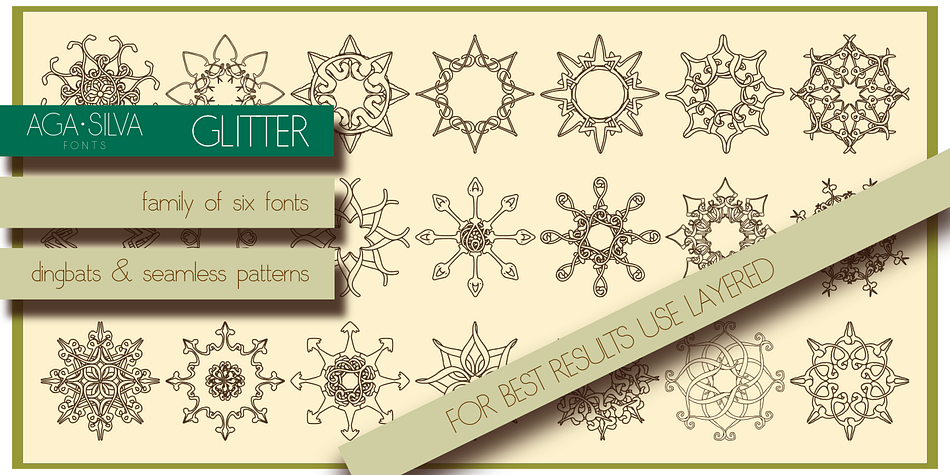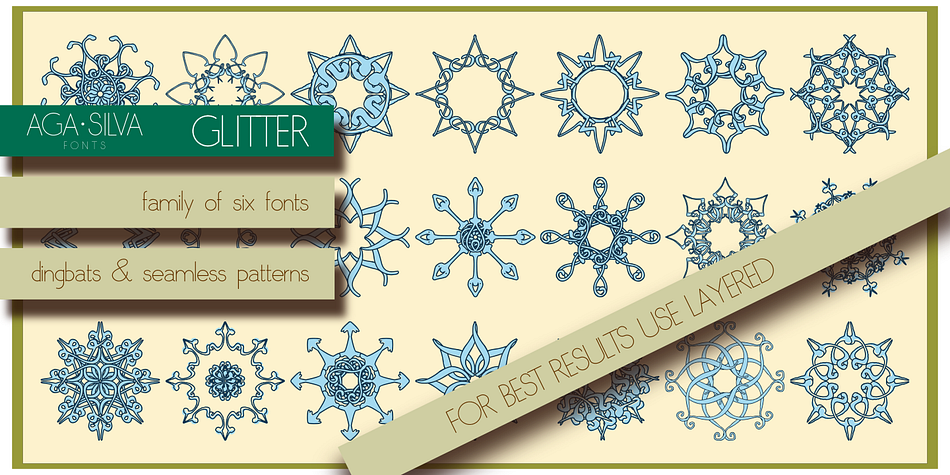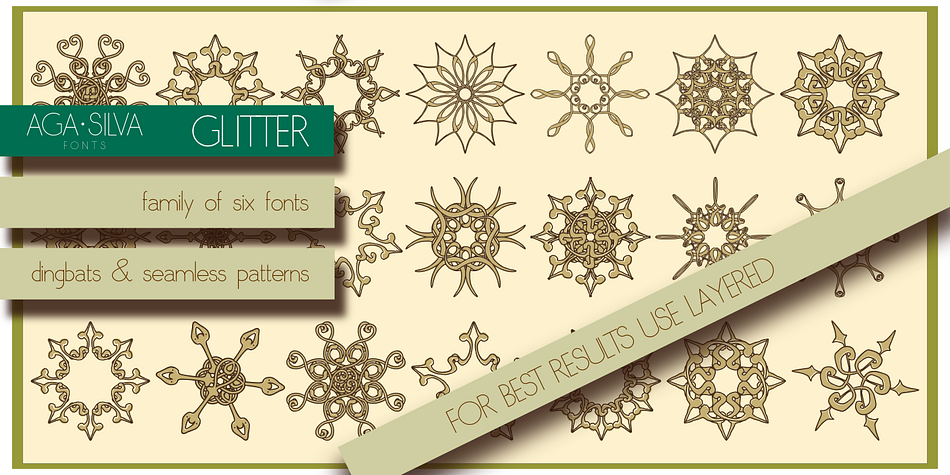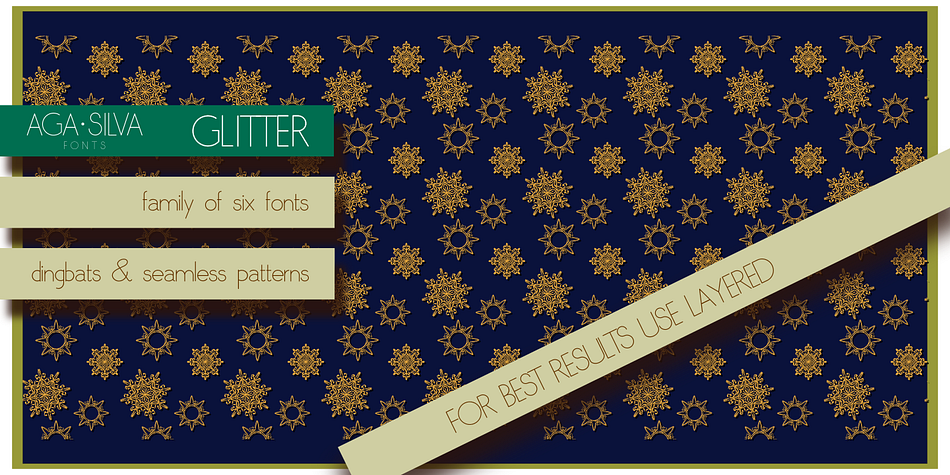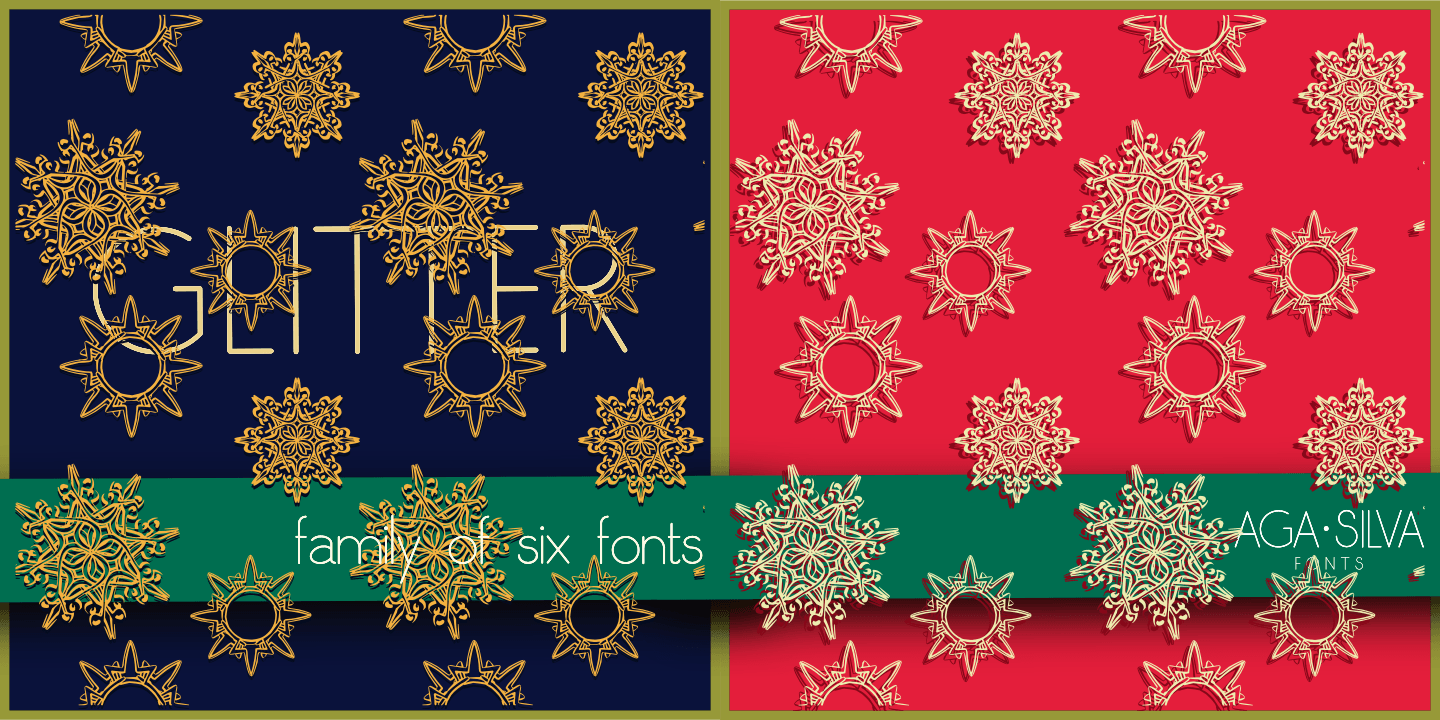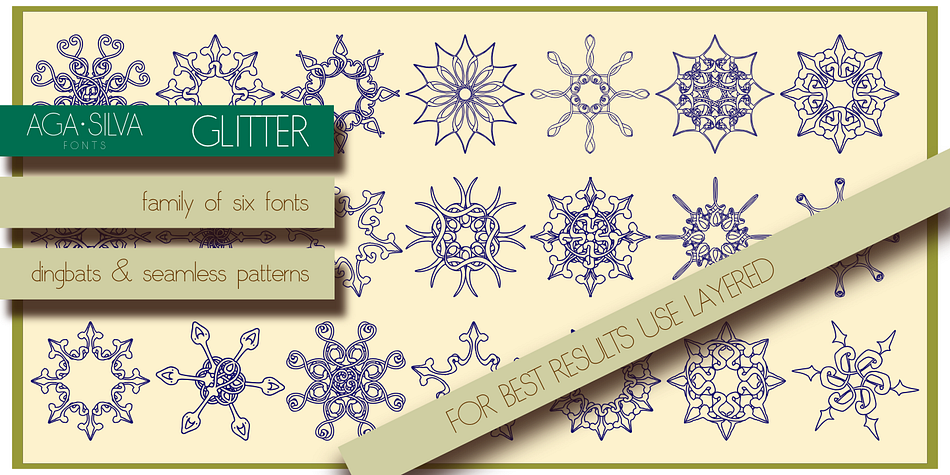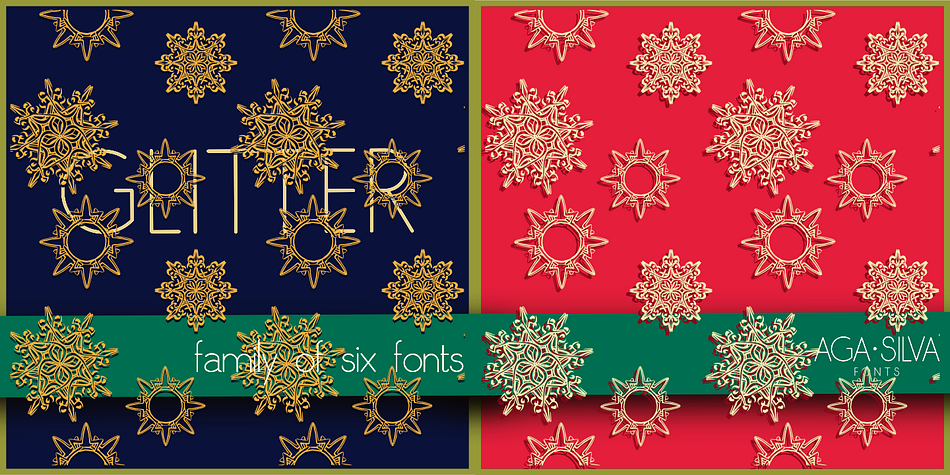
Glitter is a dingbat and stencil font family. This typeface has six styles and was published by Aga Silva Fonts.
The fonts in this family of six files contain 62 original dingbats in 5 variants, and 26 original dingbats in 2 variants plus 10 tilable patterns (Stars Medley).
For best results use layered.